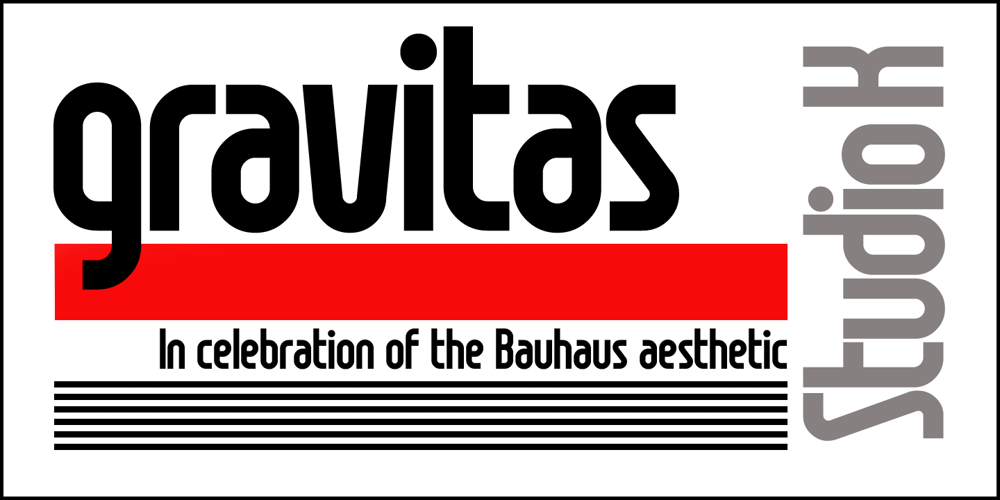
Gravitas Font Family was designed by Keith Tricker and published by Studio K. Gravitas contains 6 styles and family package options. This font owes its inspiration to the Bauhaus, the celebrated 1920s design collective which more or less invented modernism as we know it in the applied arts: from architecture and industrial design to graphics and typography. In its day, Bauhaus typography would have been considered brutally modern. Nowadays, when unadorned sans serifs are commonplace, it still has a freshness and quirkiness that sets it apart. With this new release I’ve tried to recapture the zeitgeist of those pioneering days.